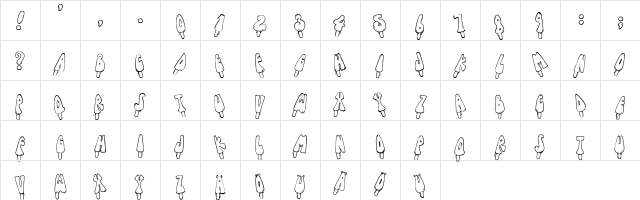
Jenna's Popsicles Regular Font Preview
Jenna's Popsicles Regular
Design Context for Jenna's Popsicles Typeface
Jenna's Popsicles is a composed and adaptable typeface that performs quietly and consistently across a wide range of design contexts.